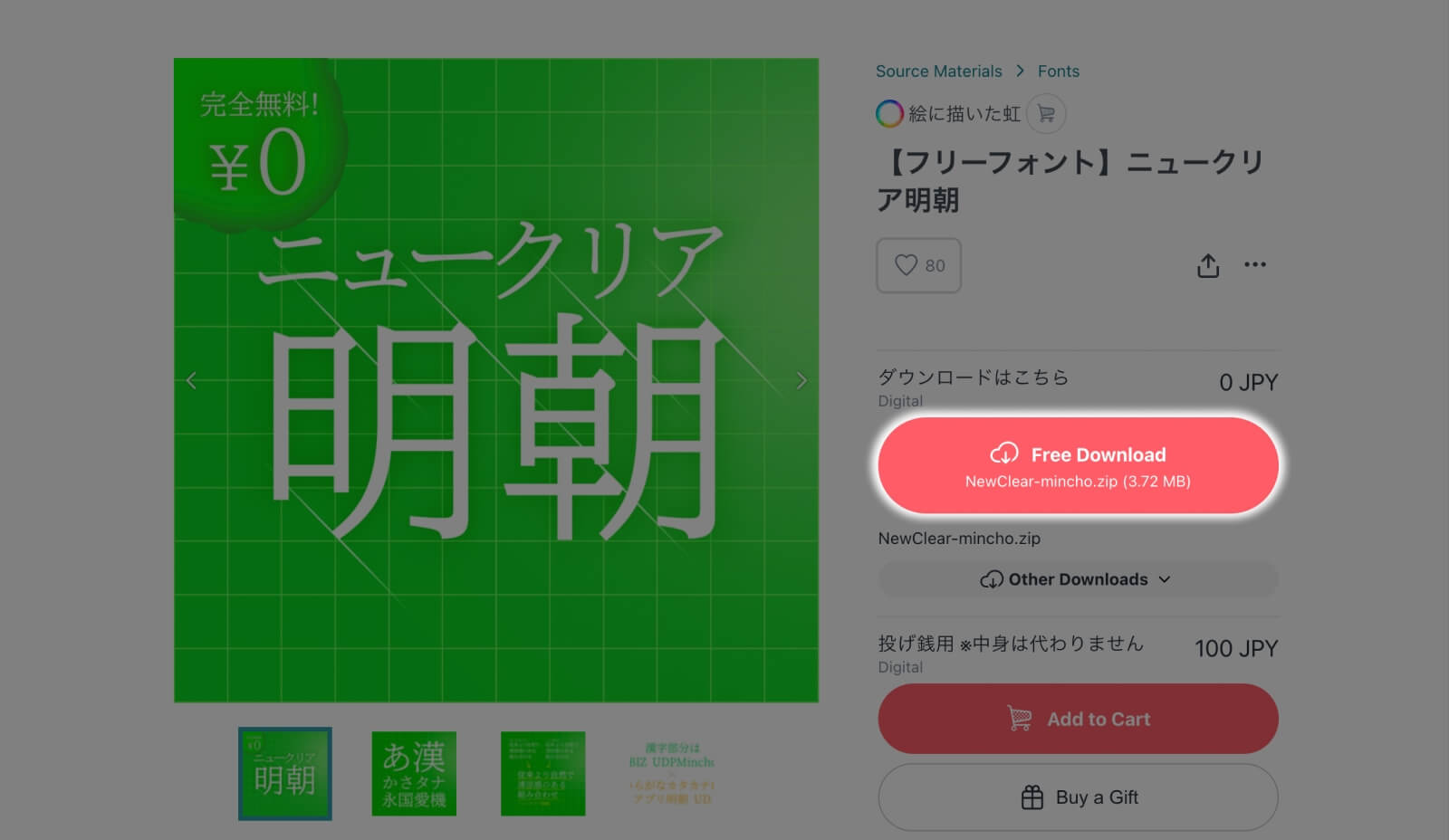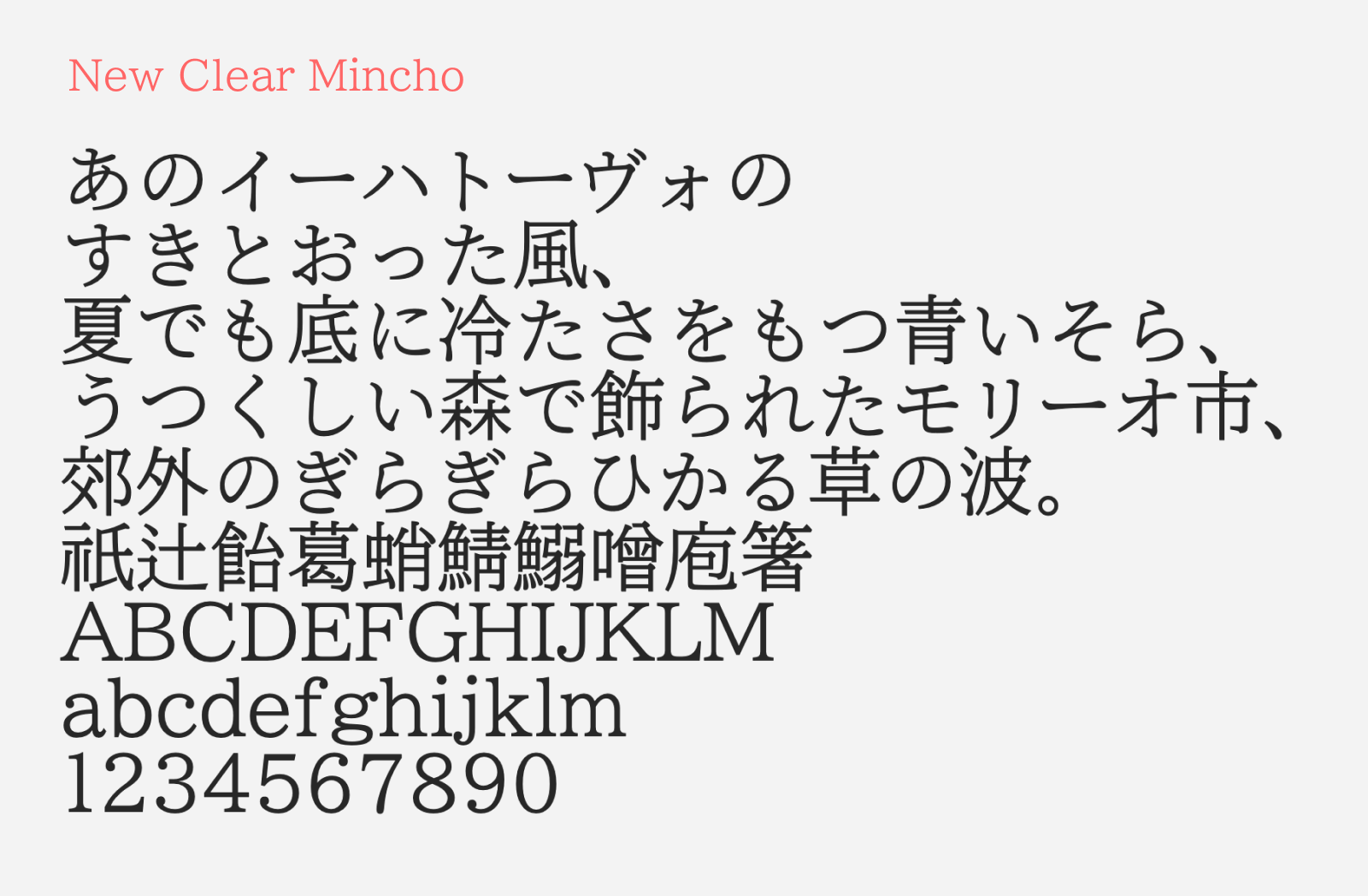
New Clear Mincho
New Clear Mincho (ニュークリア明朝) is a free mincho or serif style Japanese font with refreshing but formal look. It was made by combining the best of both world from another two open source fonts: the kanji characters from BIZ UDPMincho and the kana (hiragana and katakana) characters from Apuri Mincho UD.
New Clear Mincho works great in both designs for formal and casual occasions, thanks to its flowy and fluidic strokes that feels refreshing yet serious. It supports the usual Japanese characters and JIS Level 1, Level 2 and IBM extended kanji characters. Since it’s a font created based on two open source fonts, New Clear Mincho was released under the same license (SIL Open Font License, v1.1) and can be use on commercial projects.
• Hiragana and Katakana
• Kanji (JIS Level 1 + Level 2 + IBM Extended)
• Alphanumerics
• Latin, Cyrillic and Greek script
• Symbols and Punctuations